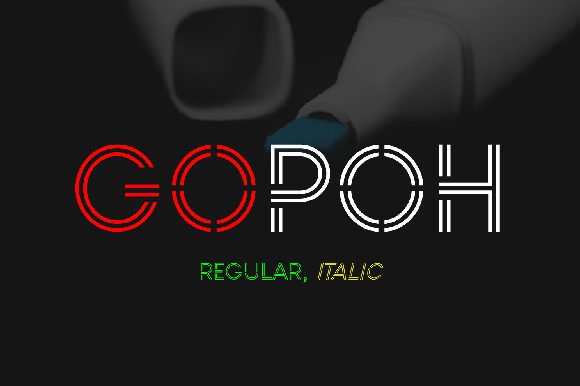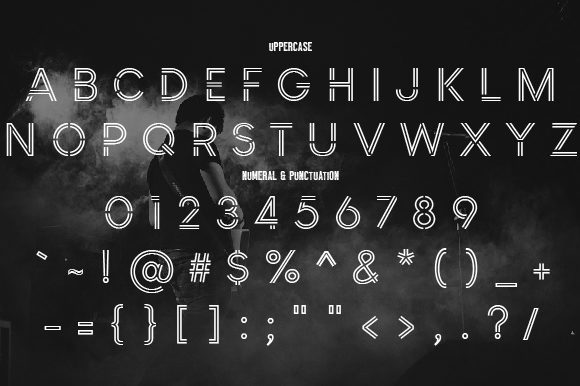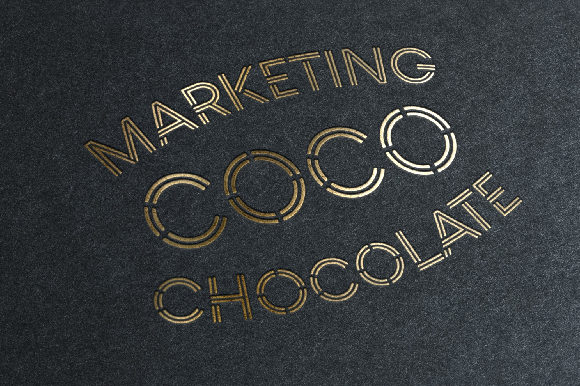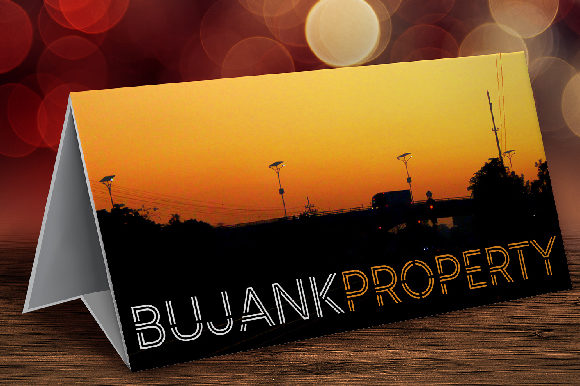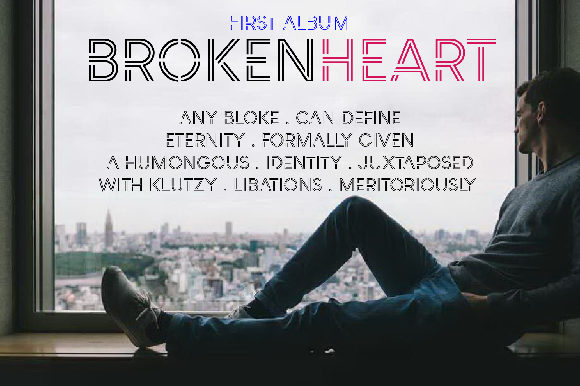
The Future of Typography: Unveiling the Gopoh Font
As a designer, there’s nothing quite like that moment when a new project comes to life – the thrill of experimenting with different fonts, colors, and layouts until everything falls into place. For many of us, the right font can make all the difference between a design that’s merely good and one that’s truly exceptional. And that’s where the Gopoh Font comes in – a minimal futuristic uppercase typeface designed to give your text a modern smart effect.
With its clean lines and sleek aesthetic, the Gopoh Font is perfect for designers looking to add a touch of sophistication to their work. Whether you’re creating a logo, brochure, or website, this versatile font is sure to make a lasting impression. Its simplicity and artistic flair make it a valuable addition to any designer’s toolkit, and its modern look is sure to keep your designs feeling fresh and on-trend.
Gopoh Font Key Features
- Font Family: Gopoh is a sans-serif font family, suitable for various applications such as digital displays, signage, and printed materials.
- Unique Characteristics: Gopoh features a clean and modern design with a unique blend of geometric and organic elements, making it stand out from other sans-serif fonts.
- Language Support: Supports a wide range of languages, including Latin, Cyrillic, and Greek scripts, making it a versatile choice for global applications.
Gopoh Font Review
Overall, I was quite impressed with the Gopoh Font, but it also had some limitations that I’d like to point out.
- Unique aesthetic: Gopoh has a distinctive look that sets it apart from other fonts. The combination of geometric shapes and fluid curves is both modern and elegant.
- High legibility: The font is highly readable, even at small sizes, making it perfect for body text.
- Excellent for digital use: Gopoh is optimized for screens, ensuring that it looks great on both desktop and mobile devices.
Limitediations ⚠️
- Not suitable for large headings: While Gopoh is great for body text, it may not be the best choice for large headings or titles due to its relatively small x-height.
- Lack of italic and bold variations: While the font has a regular and bold weight, there are no italic or bold italic variations available.
Gopoh Font is a solid choice for digital projects that require a modern and elegant look. While it has some limitations, its unique aesthetic and high legibility make it a great addition to any designer’s toolkit.
Tips for Getting the Most Out of the Gopoh Font
Use the Gopoh font for headings and titles to add a touch of elegance and sophistication to your designs.
Pair the Gopoh font with other fonts to create a unique and visually appealing combination.
Experiment with different font sizes and colors to find the perfect balance for your design.